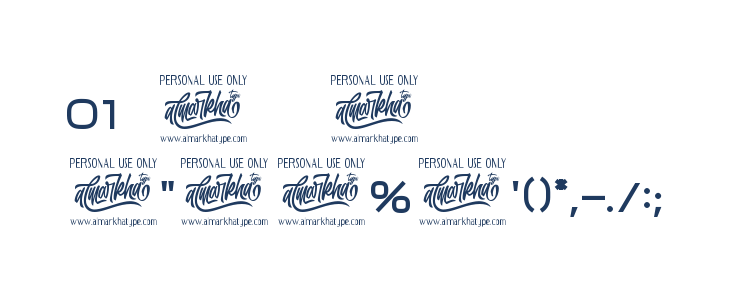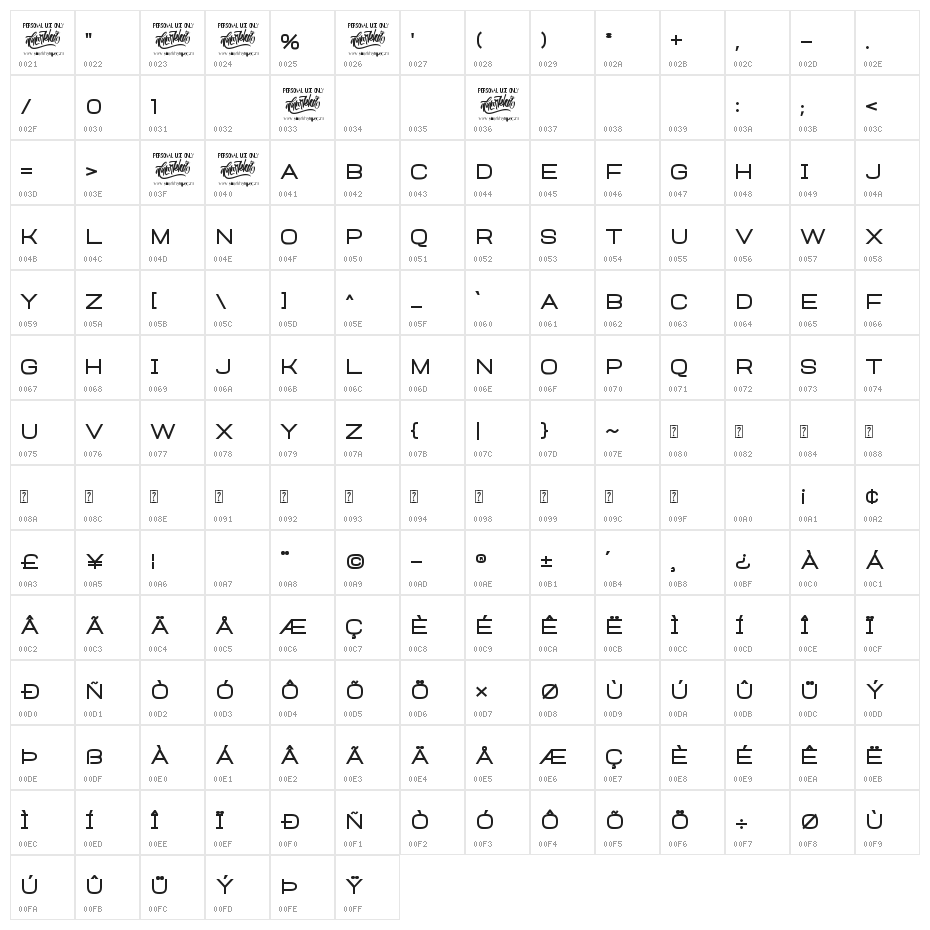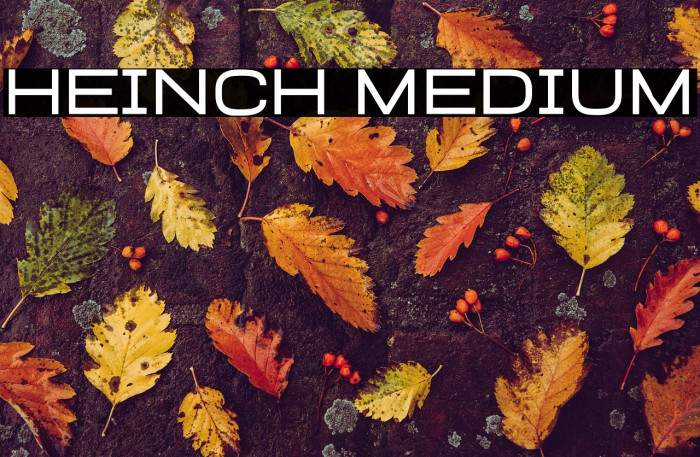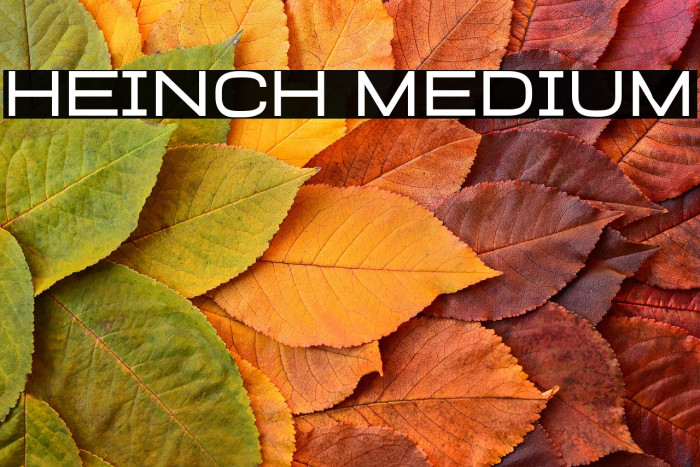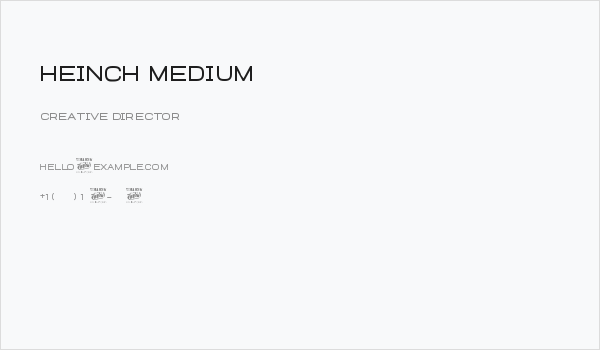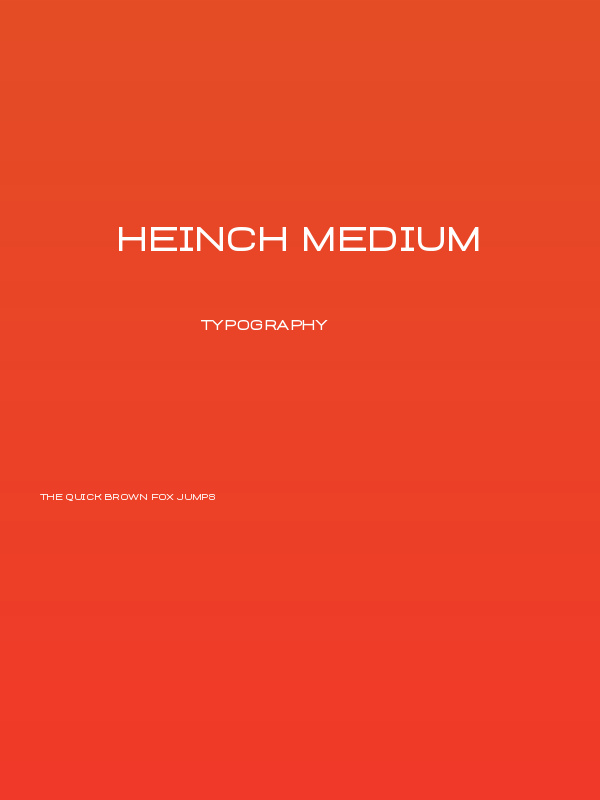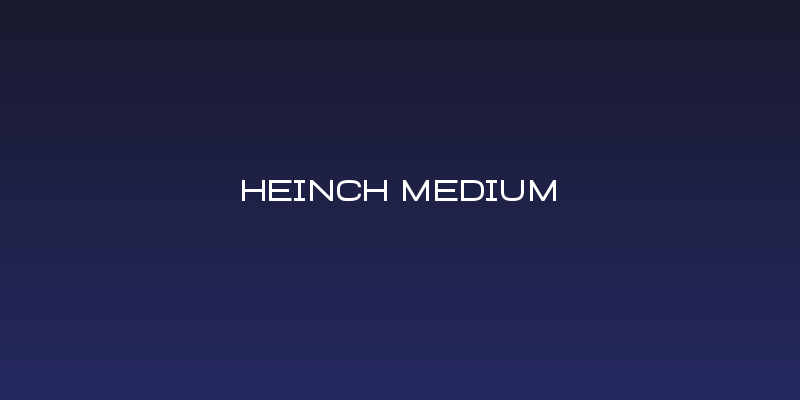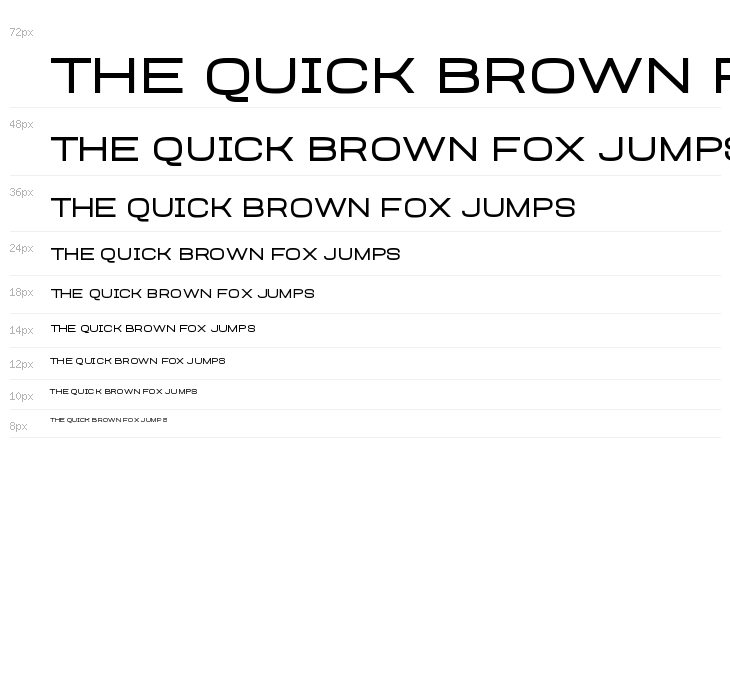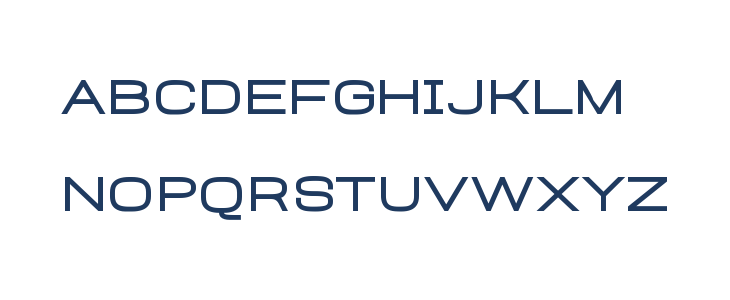
Heinch Medium Font
Heinch Medium Description
This font features a clean and modern design with a geometric structure. The characters are well-balanced, with consistent stroke widths that provide a uniform appearance. The uppercase and lowercase letters are designed with precision, offering a sleek and professional look. The numerals and special characters maintain the same geometric style, ensuring cohesion across all elements. This font is versatile, suitable for various design applications where clarity and modernity are desired.